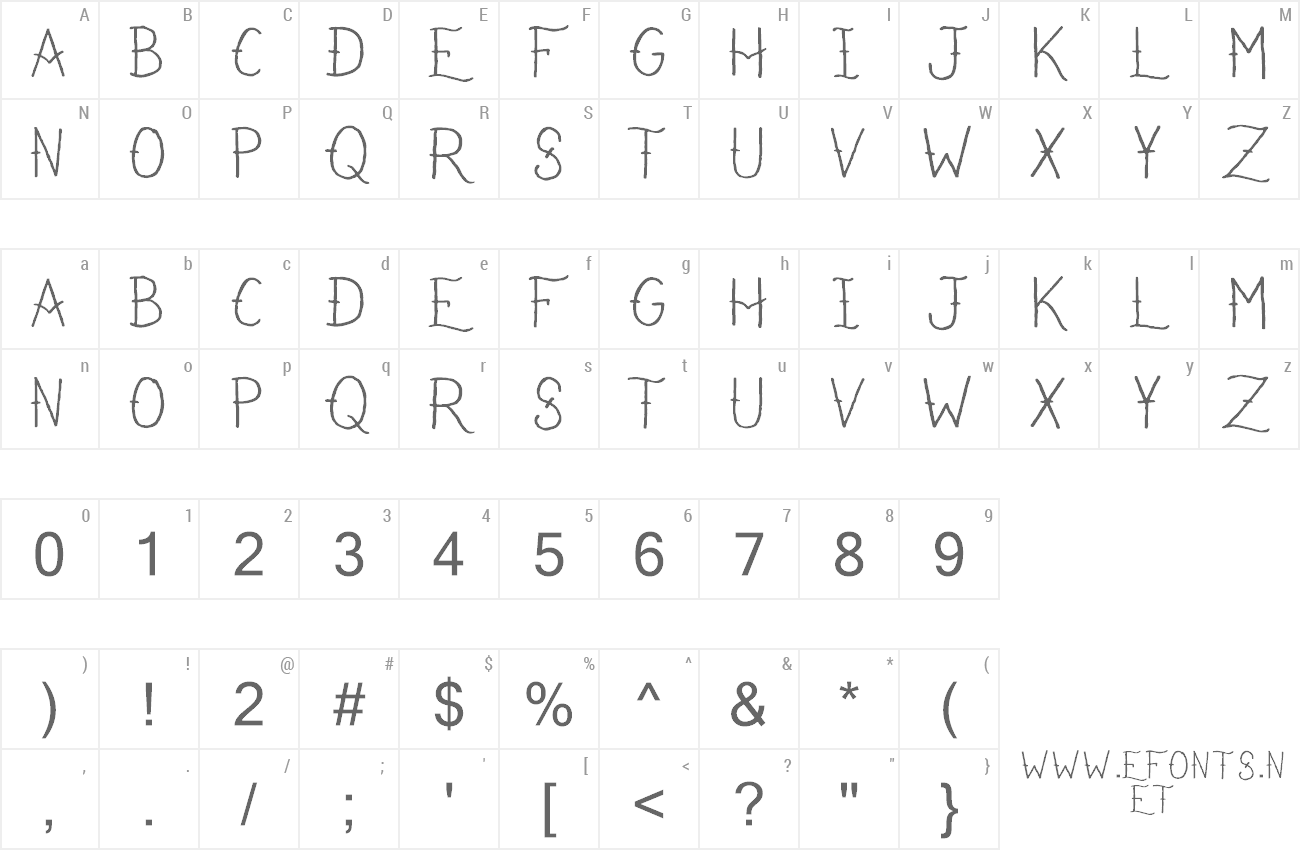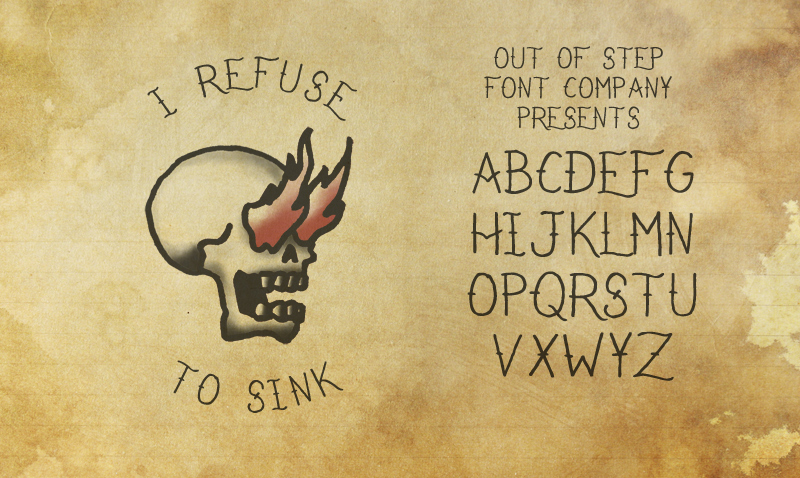
Preview and download I Refuse To Sink Font. Created by Out of Step Font Company in Fancy Various styles with Free for personal use license.
| Here's a simple elegant hand-drawn tattoo script designed to blend well with your traditional flash projects. Hit us up about custom hand drawn or commercial licenses: |